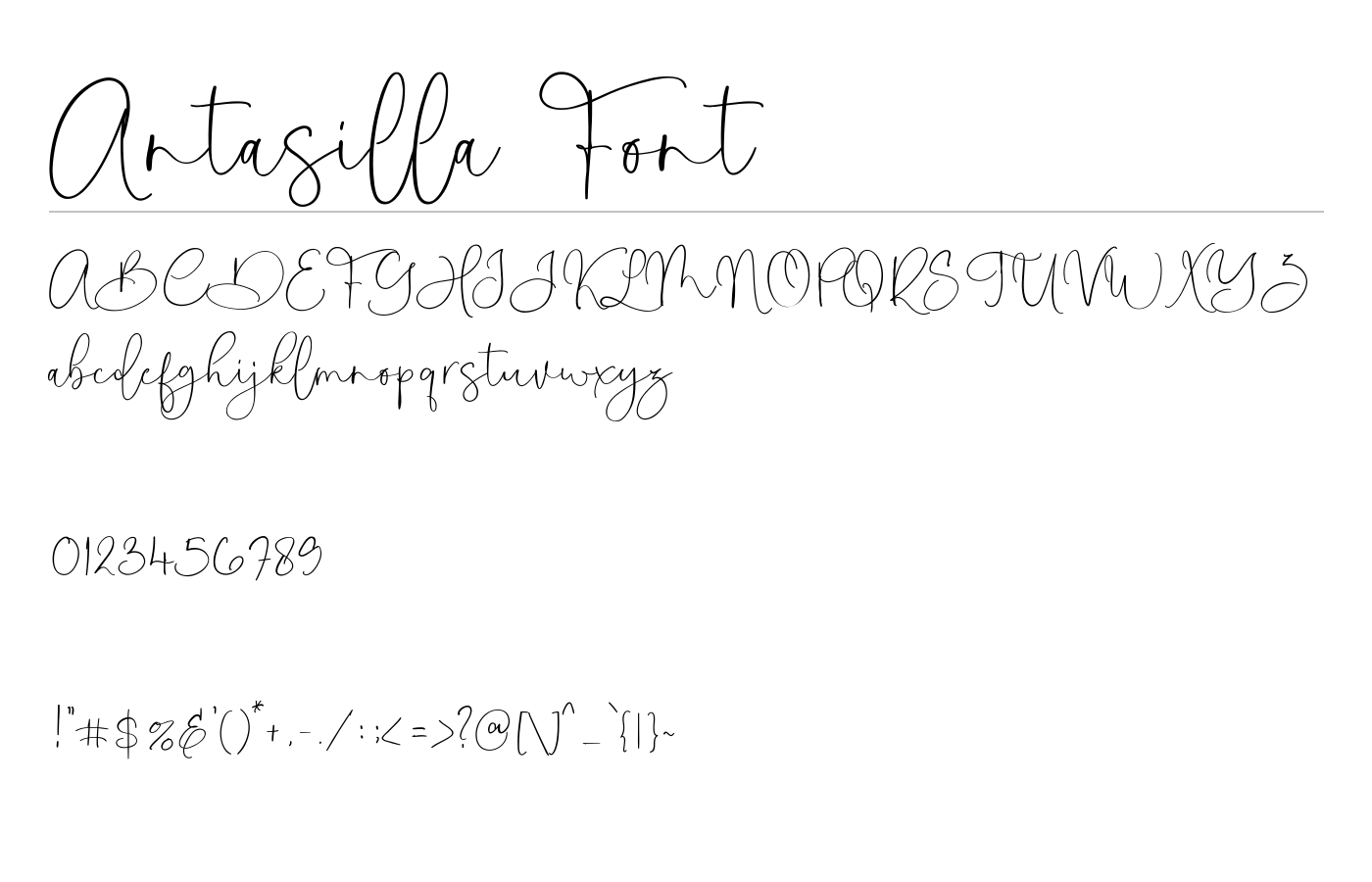
Antasilla is an elegant, delicate script font featuring thin, flowing lines with playful loops and swirls, giving it a charming and whimsical personality. Its tall, slender letterforms have a casual yet refined feel, making it ideal for creative projects like invitations, branding, and feminine design themes that seek a personal, handcrafted touch. This font works best in large sizes for headlines or logos where its unique, artistic style can truly shine.
Antasilla Font
About Antasilla Font
| Font family | Antasilla Font |
| Designer | Afridah Ciputra |